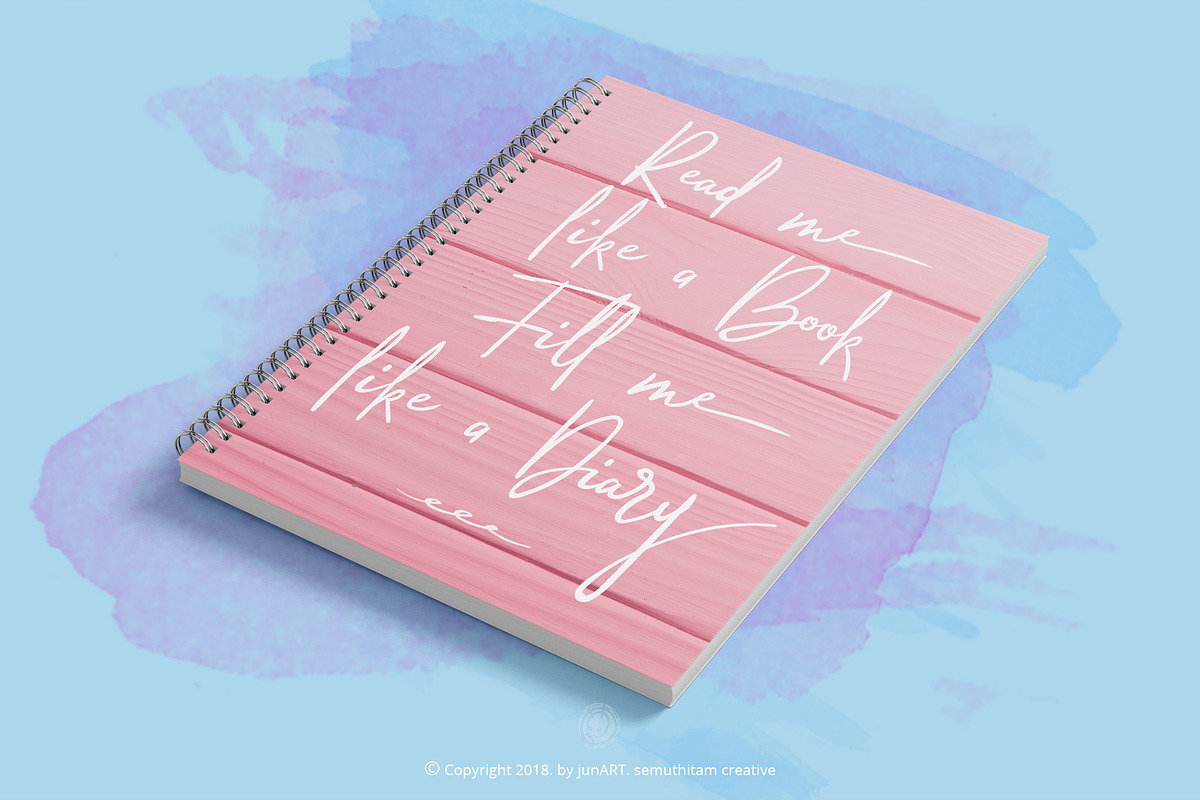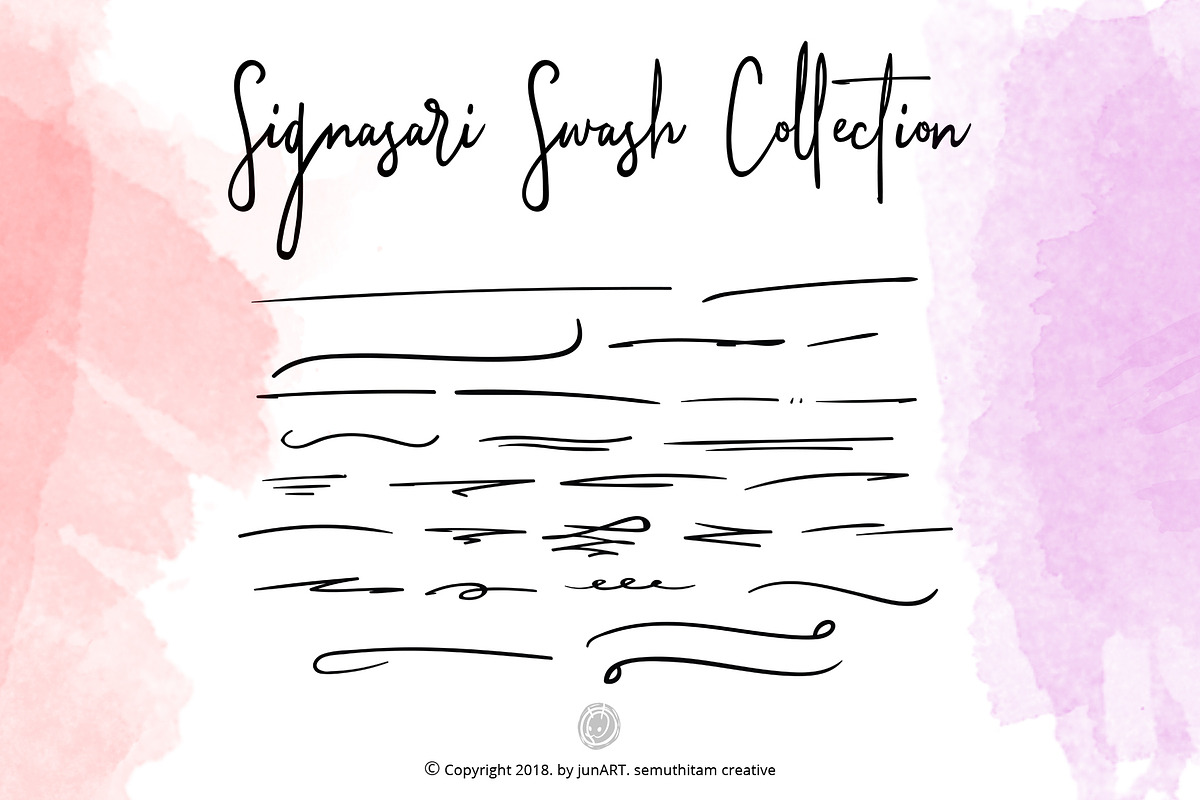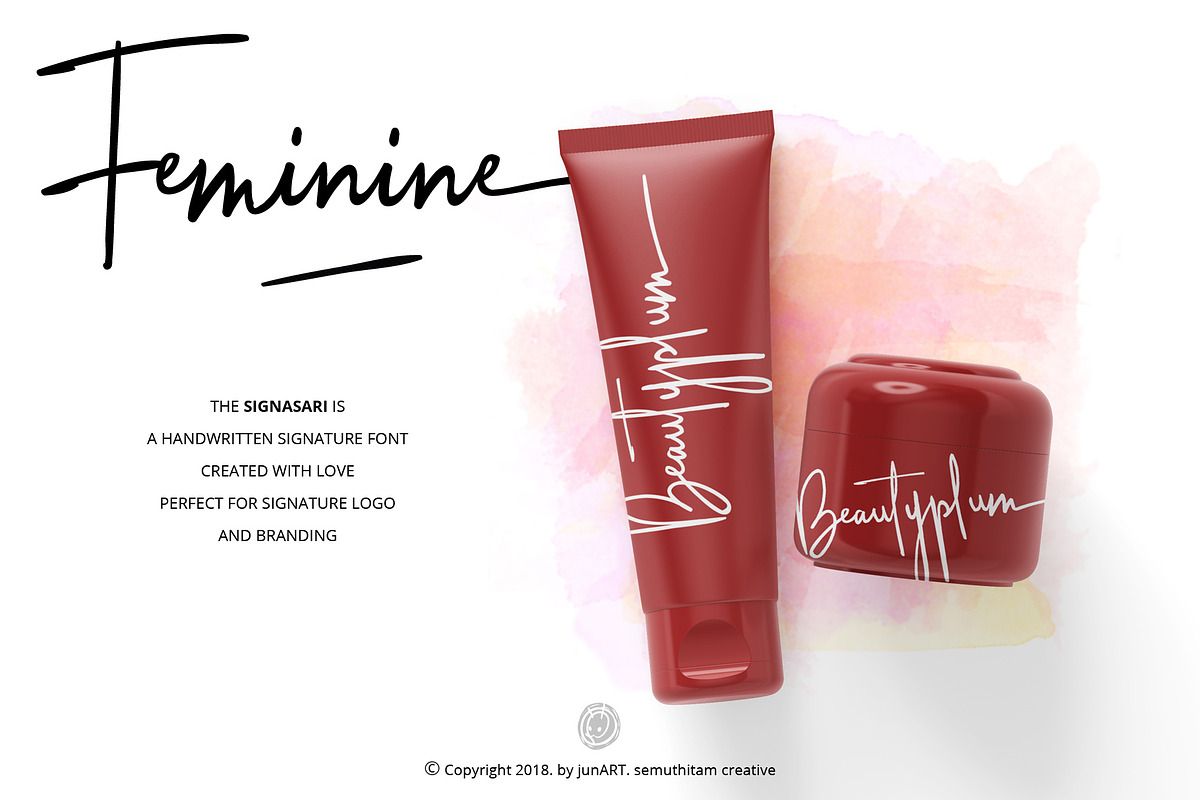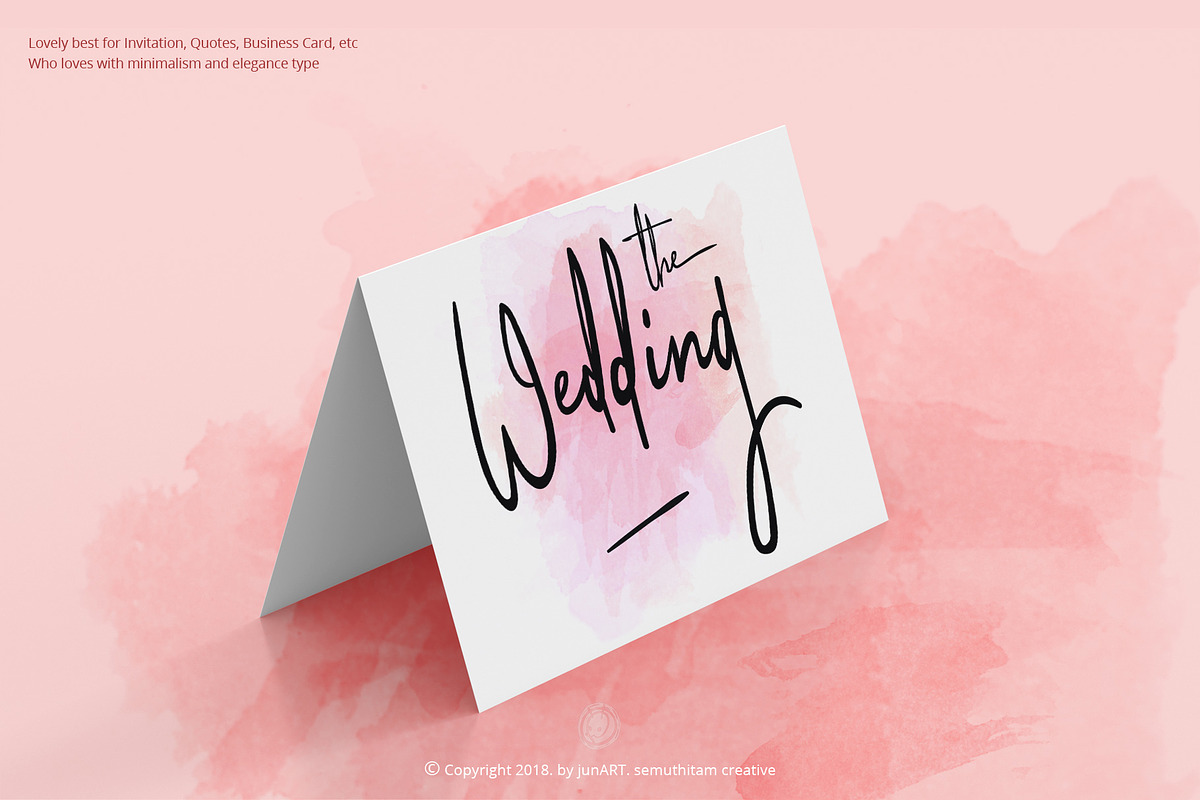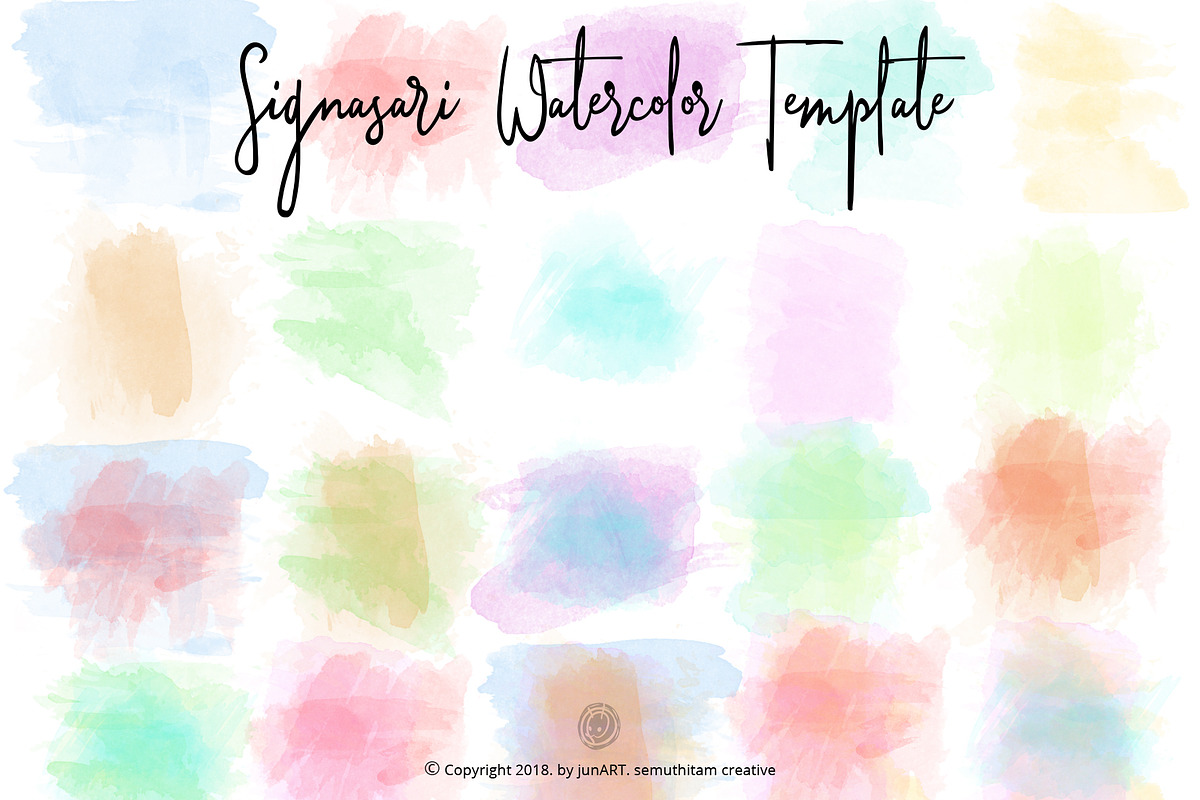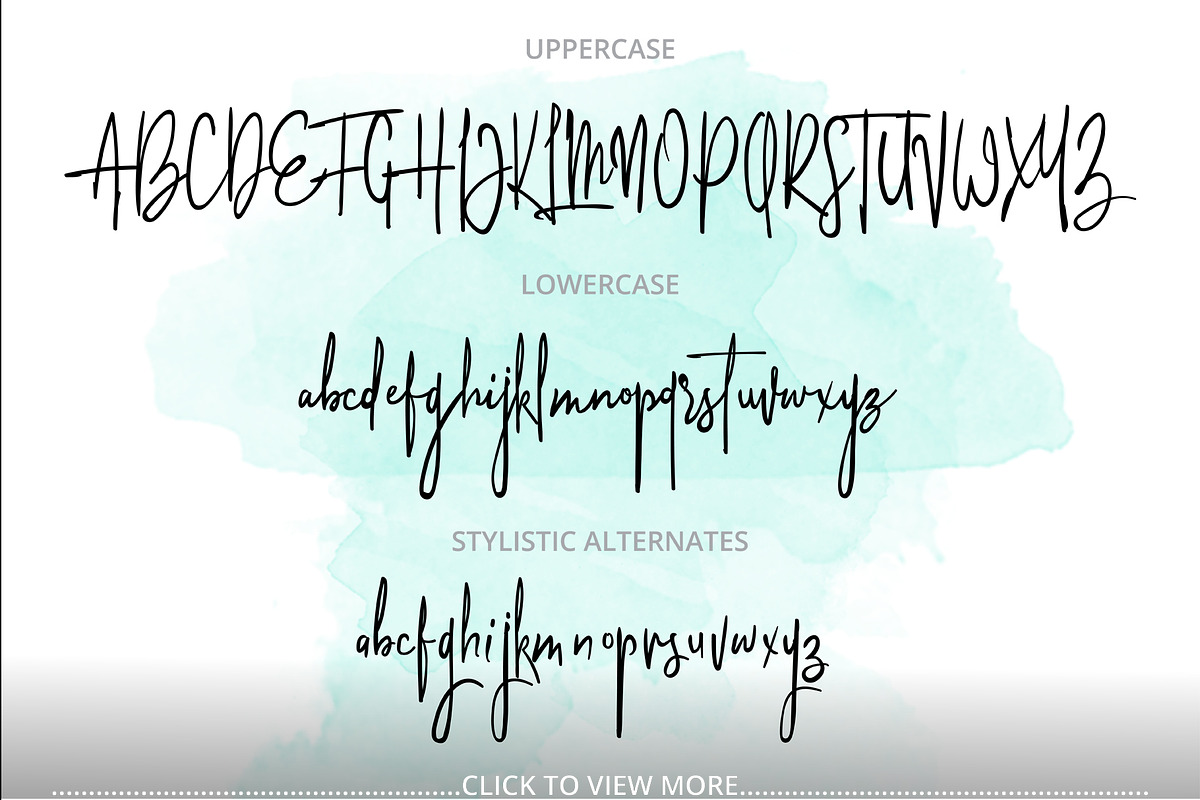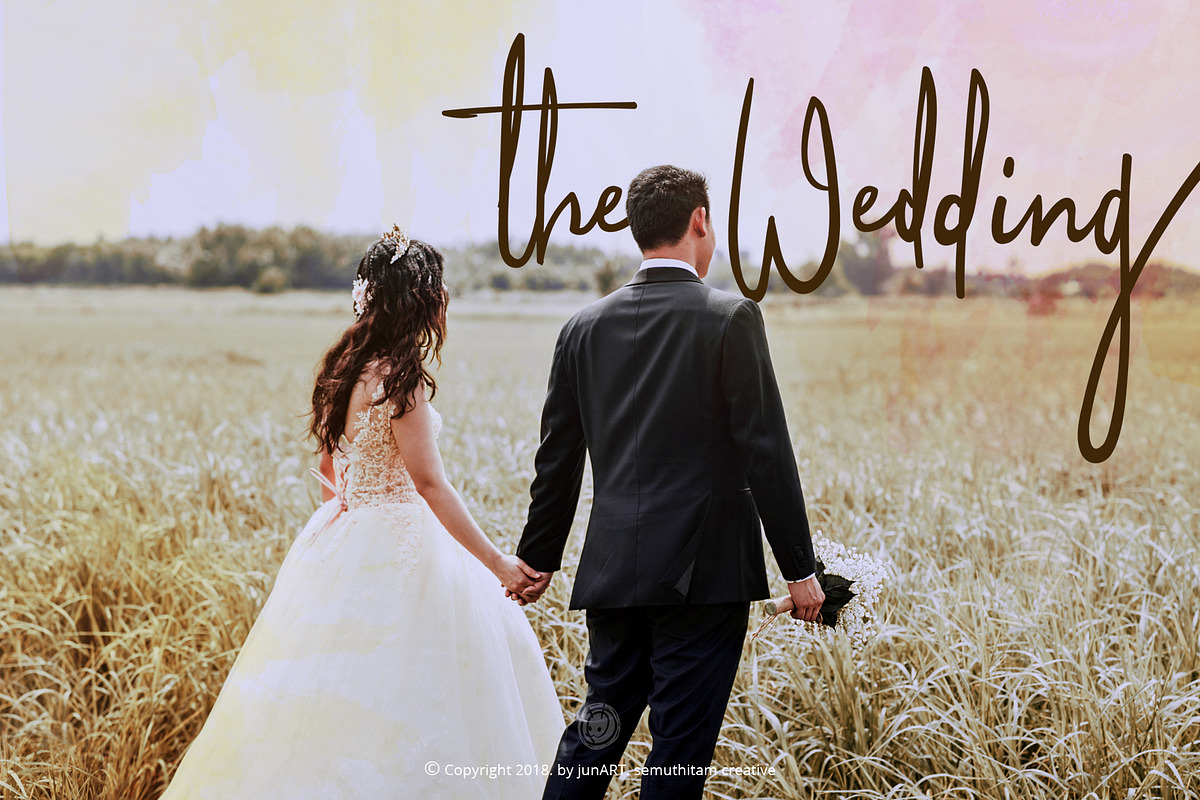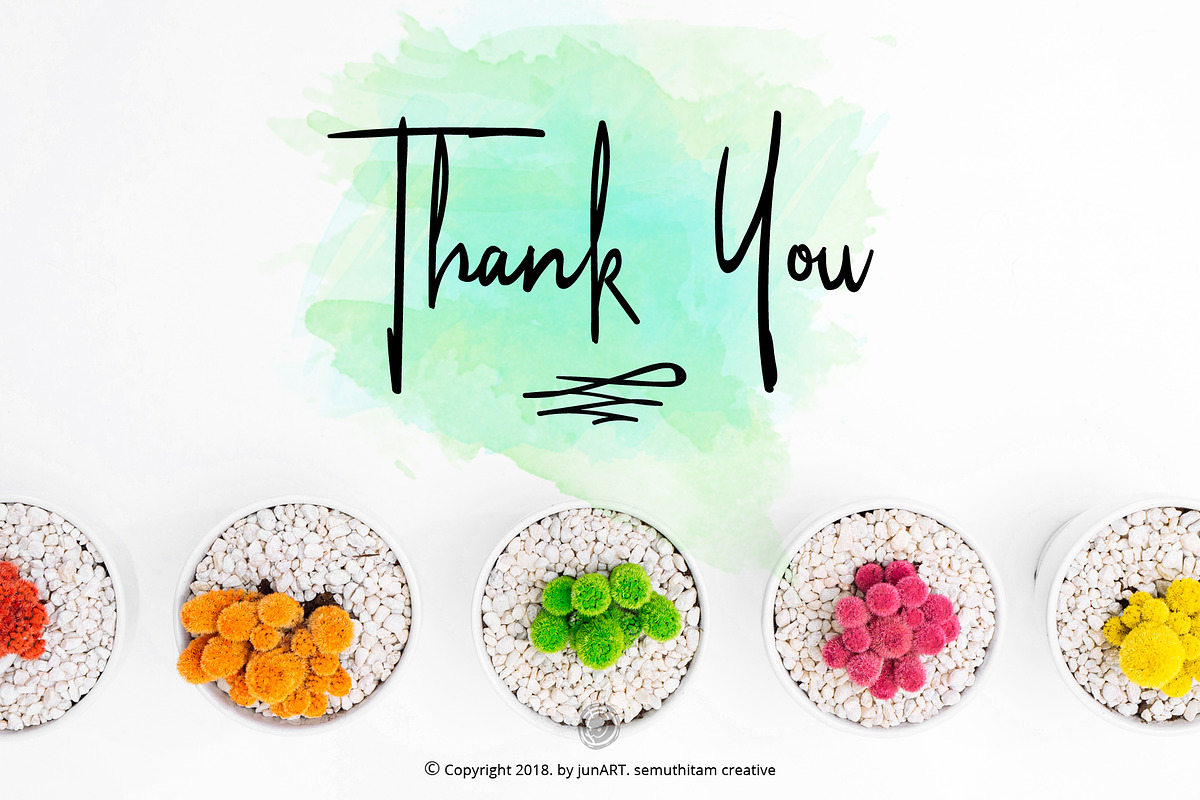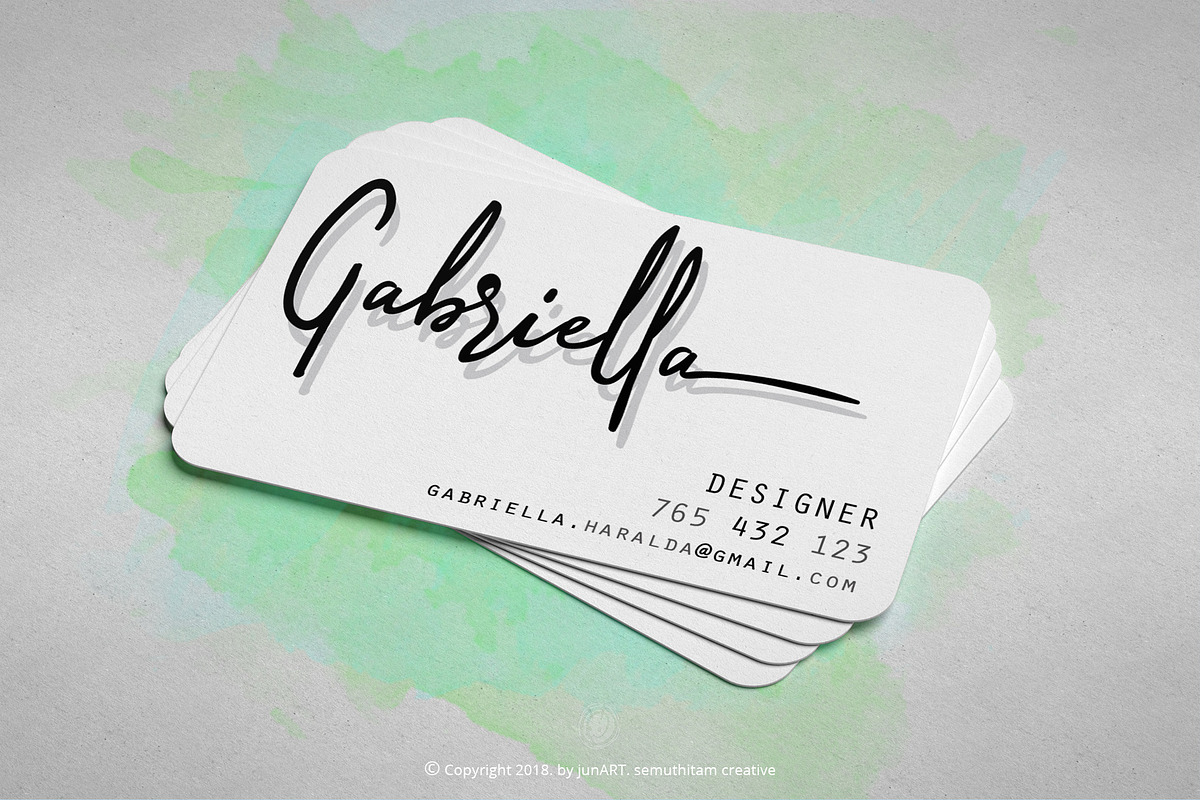
Signasari + Extras
Introducing Signasari - a Handwritten Signature Font. Signasari is made for all who want a side of feminine and graceful. Looks very natural with many variations made by designers. sophisticated font, is perfect for some of your requirements as to signature logo, branding, invitation, wedding, business cards, prints, and more.
Signasari made with very thorough with much consideration that all characters can get out and be able to make a harmony. Easy to use in all design software including MS. WORLD. Signasari has 43 ligatures automatically make an impression like real handwriting.